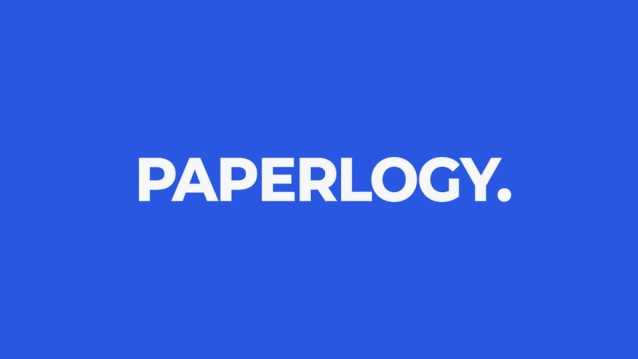
Paperlogy Font
Paperlogy Font by Lee Juim: is a hybrid typeface that brings together the strengths of three widely loved fonts: the clarity of GMarket Sans for Korean, the modern elegance of Montserrat for Latin characters, and the balance of M PLUS 2 for Japanese.
Thoughtfully curated as a go-to PowerPoint font, Paperloggy ensures a harmonious and professional look across multilingual content. Its seamless integration of scripts makes it perfect for global presentations, ed-ucational materials, and any document where both form and function matter.
Paperlogy font is designed to simplify your workflow by unifying three great choices into one powerful tool.